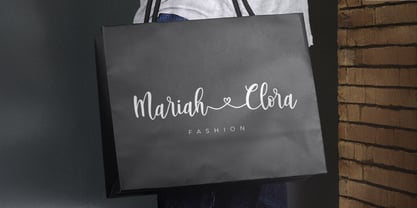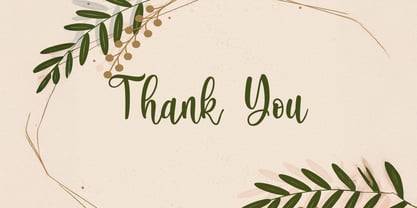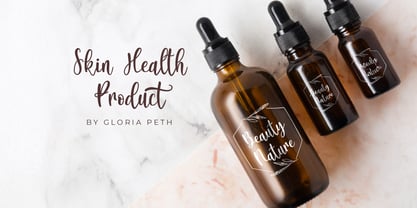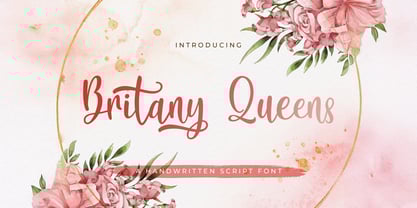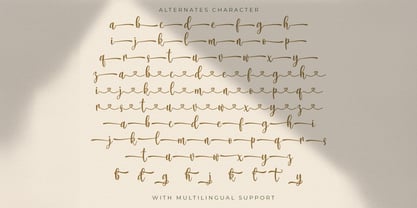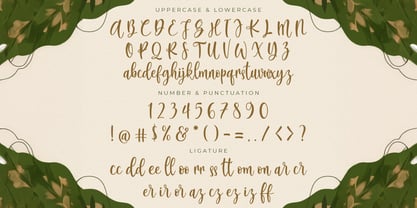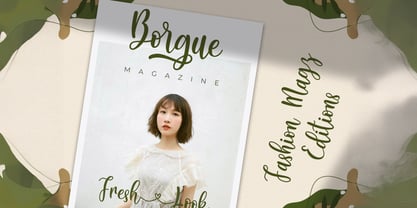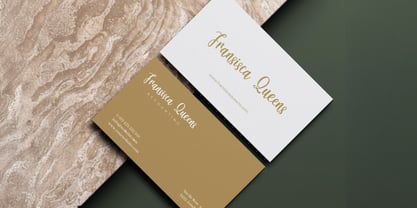
Britany Queens
by Stringlabs Creative Studio
The Britany Queens Font Family was designed by Virgiawan Listanto and published by Stringlabs Creative Studio. Britany Queens contains 1 styles. More about this family
Britany Queens is a chic and playful handwritten font with just the right touch of elegance and attitude. With its casual flow and slightly bouncy baseline, Britany Queens brings personality and flair to your designs like a confident handwritten note from your trendiest friend. Whether you’re designing logos, quotes, or packaging, Britany Queens delivers a handwritten look that’s both stylish and approachable.
Designers: Virgiawan Listanto
Foundry: Stringlabs Creative Studio